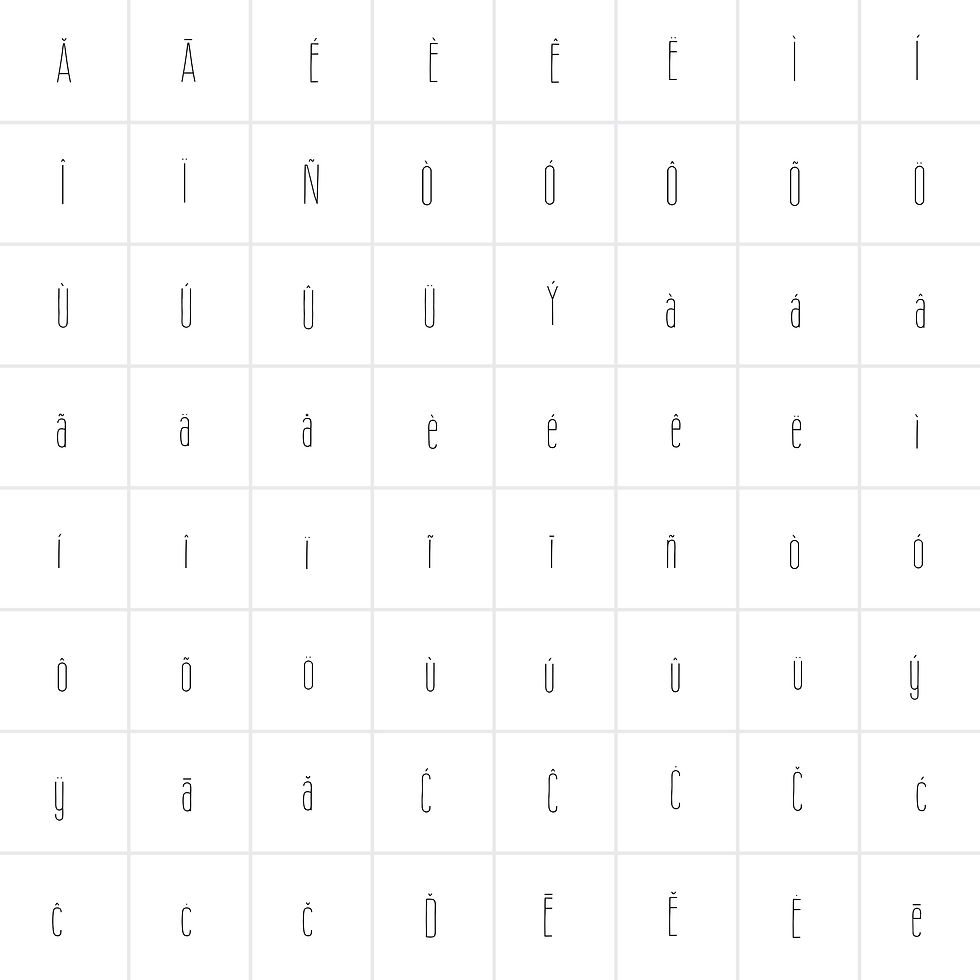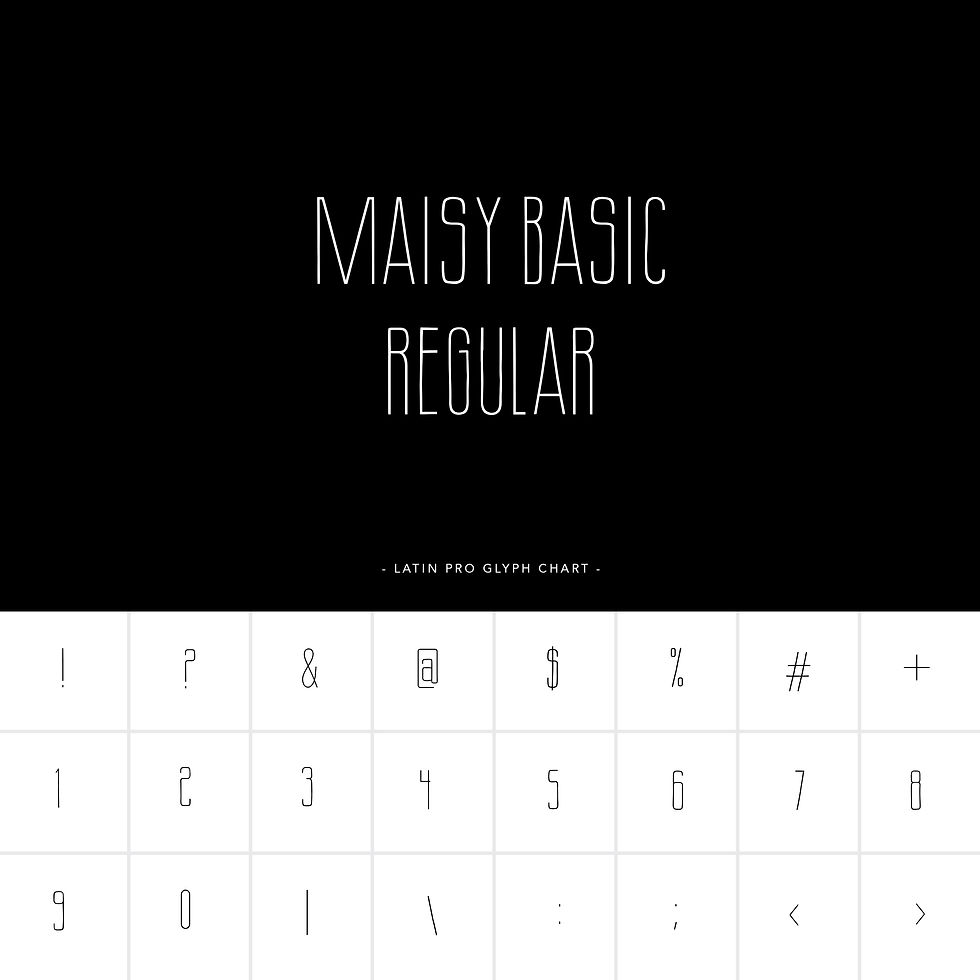
MAISY BASIC FONT is a fun, geometric font with Latin Pro Characters. Use Maisy font for fashion, marketing, books, websites, magazines, film and television.
Maisy Basic Font
• ALTERNATES:
• LIGATURES:
• NUMBERS, FRACTIONS:
• LATIN PRO /MULTILINGUAL